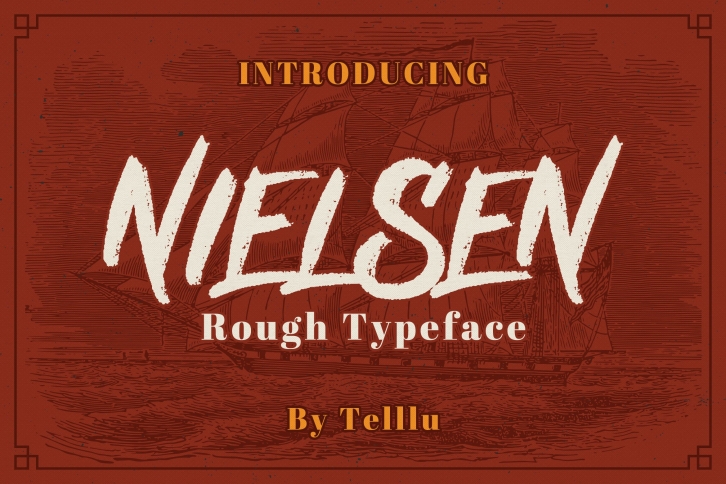
Nielsen is a rough brush font with many alternative characters and ligatures.
Very suitable to be used for the manufacture quote text, logotype, header magazine, t-shirt design and concept handmade designs, ect. It also support multilingual characters.
- 234 glyphs
- 20 ligatures
- Alternate characters